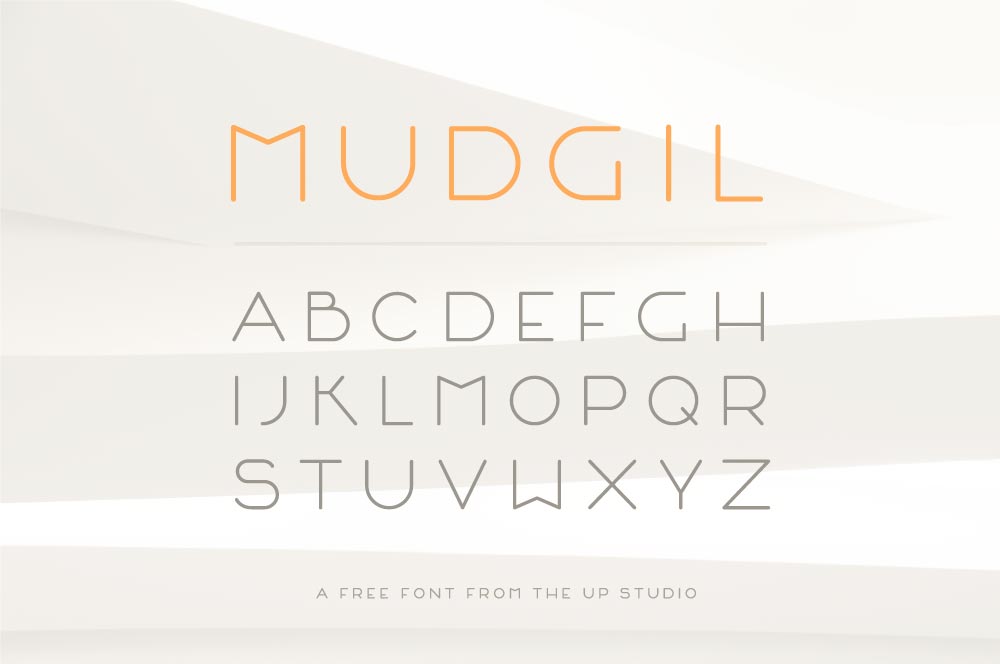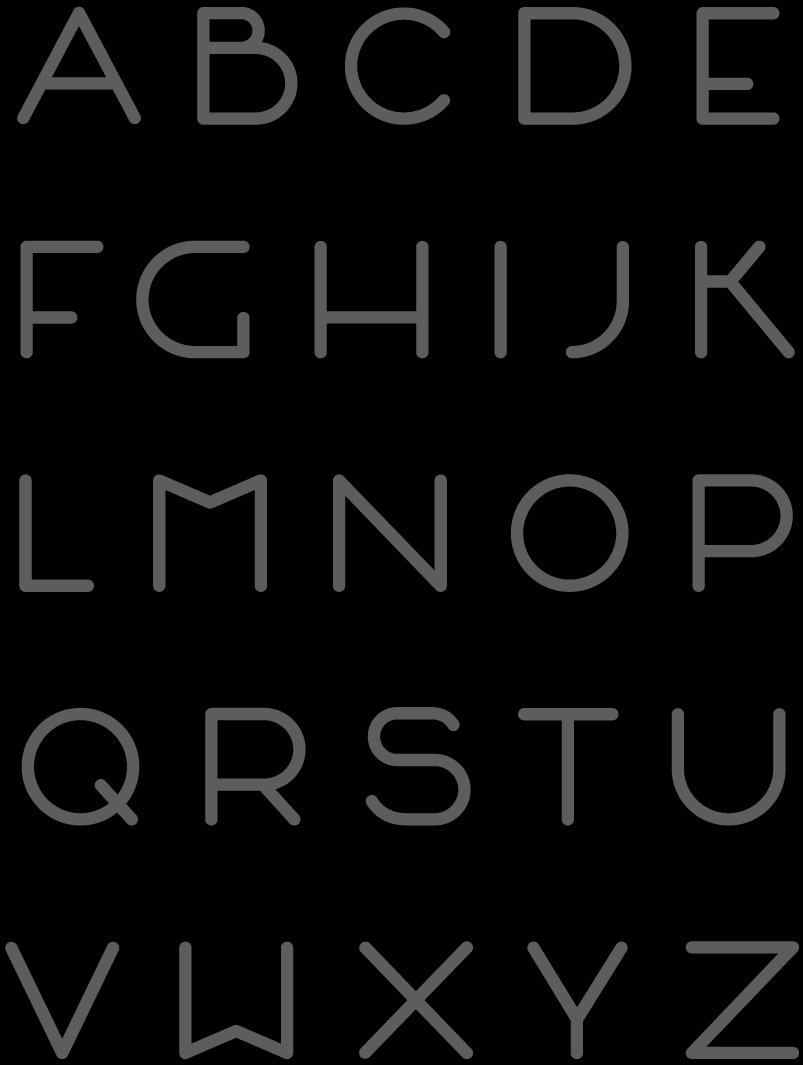
Mudgil Font was created specifically for the Mudgil Practices – a shared medical practice for whom the UP studio handled the Architecture, Interior, and Brand Design. To see more of this project and to see the font used in print collateral, web design, signage and more, please visit this page. Free for personal use!